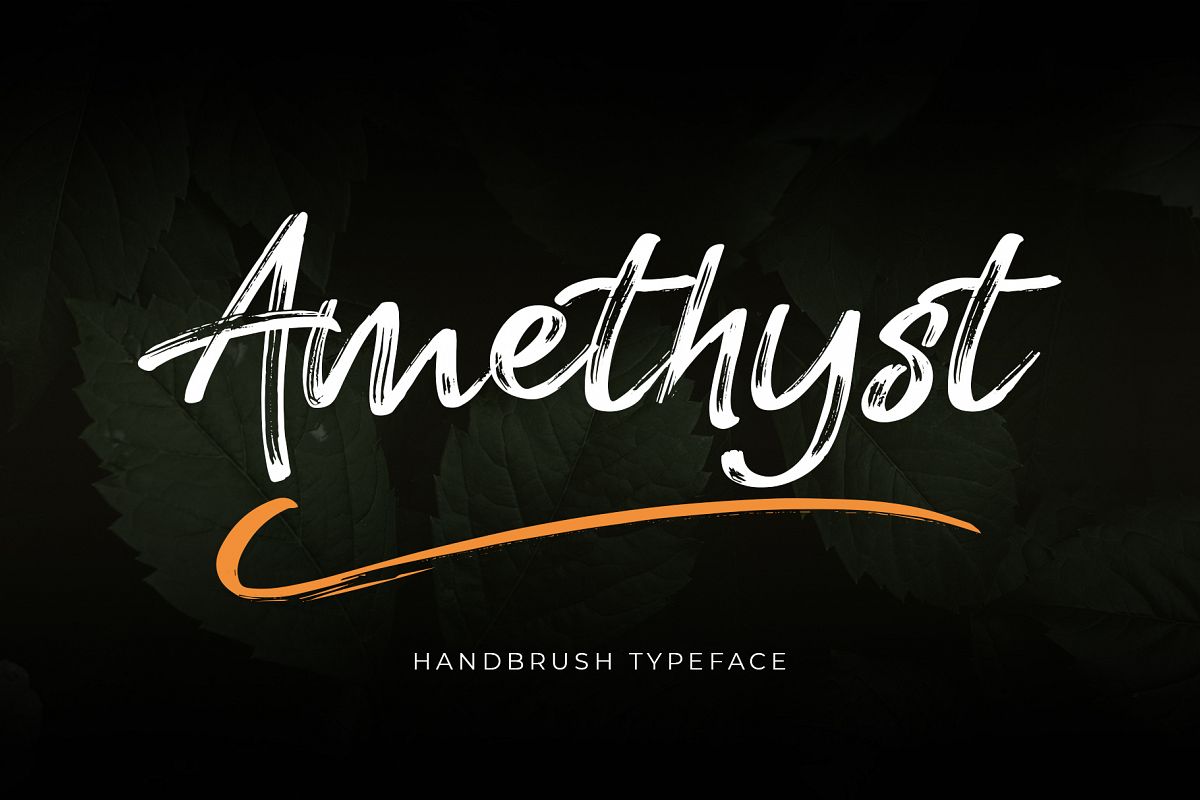
Amethyst
Amethyst-Swash
Amethyst is an exciting handwritten font with brush style. This beautiful script can make your design project look elegant, classy, luxury and modern.Amethyst is perfect for branding projects, logo, wedding designs, social media posts, advertisements, product packaging, product designs, label, photography, watermark, invitation, stationery and any projects.What's Included :